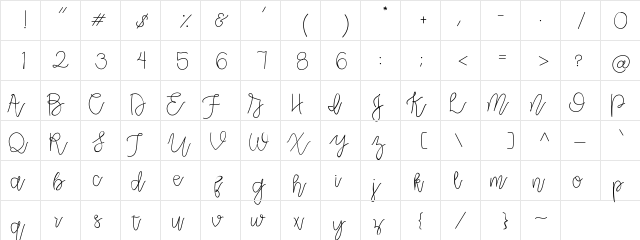
CLRPollyPlummer Medium Font Preview
CLRPollyPlummer Medium
CLRPollyPlummer Medium Font Details
Design Context for CLRPollyPlummer Typeface
CLRPollyPlummer is a composed and adaptable typeface that performs quietly and consistently across a wide range of design contexts.